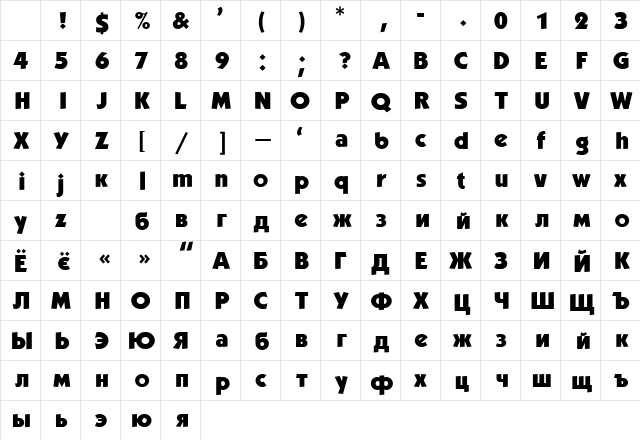
Complete Kabel MediumExttraBold glyph index. Displaying only characters natively supported by Kabel MediumExttraBold font.
Kabel is a composed and adaptable typeface that performs quietly and consistently across a wide range of design contexts. Its bold stroke weight gives it real presence on the page.